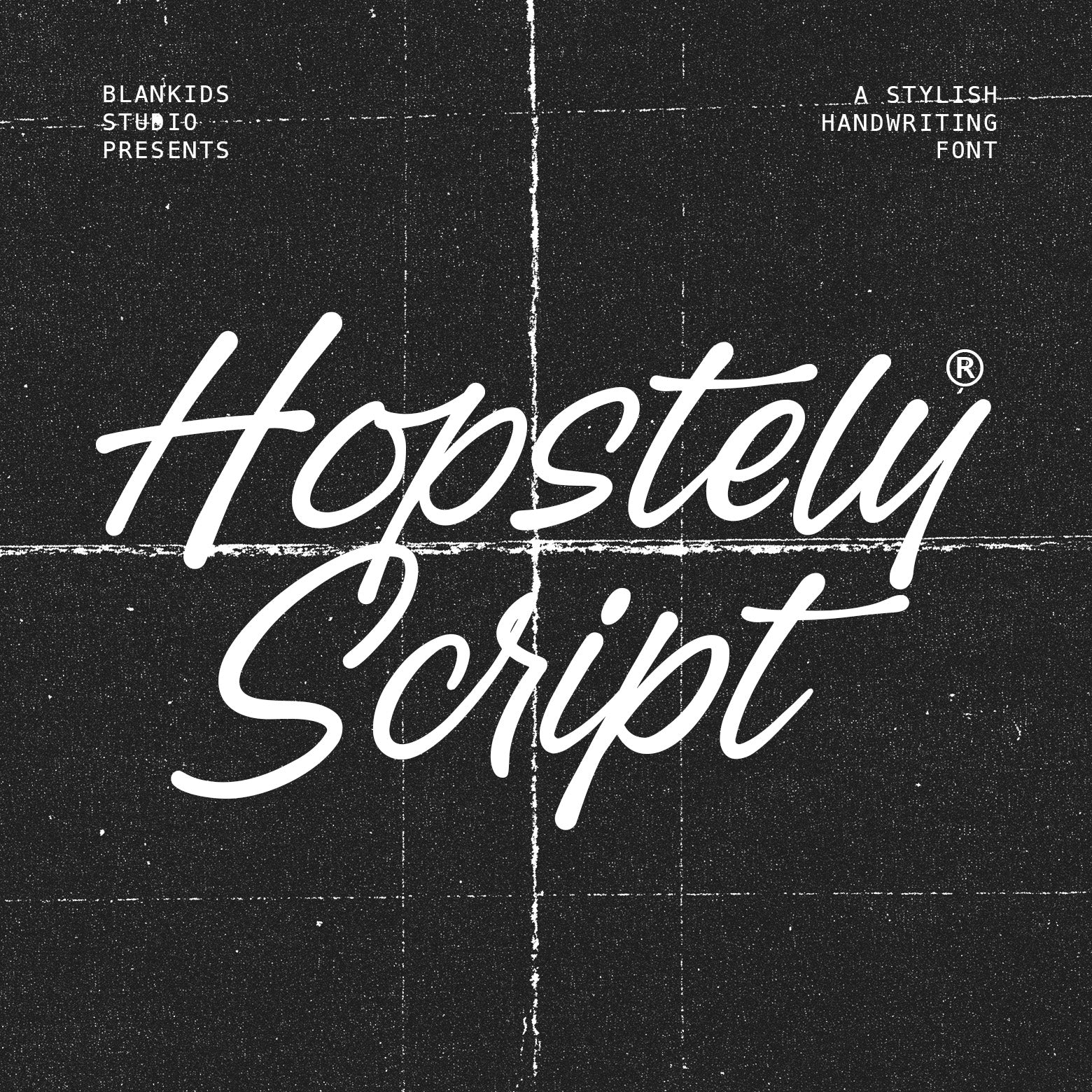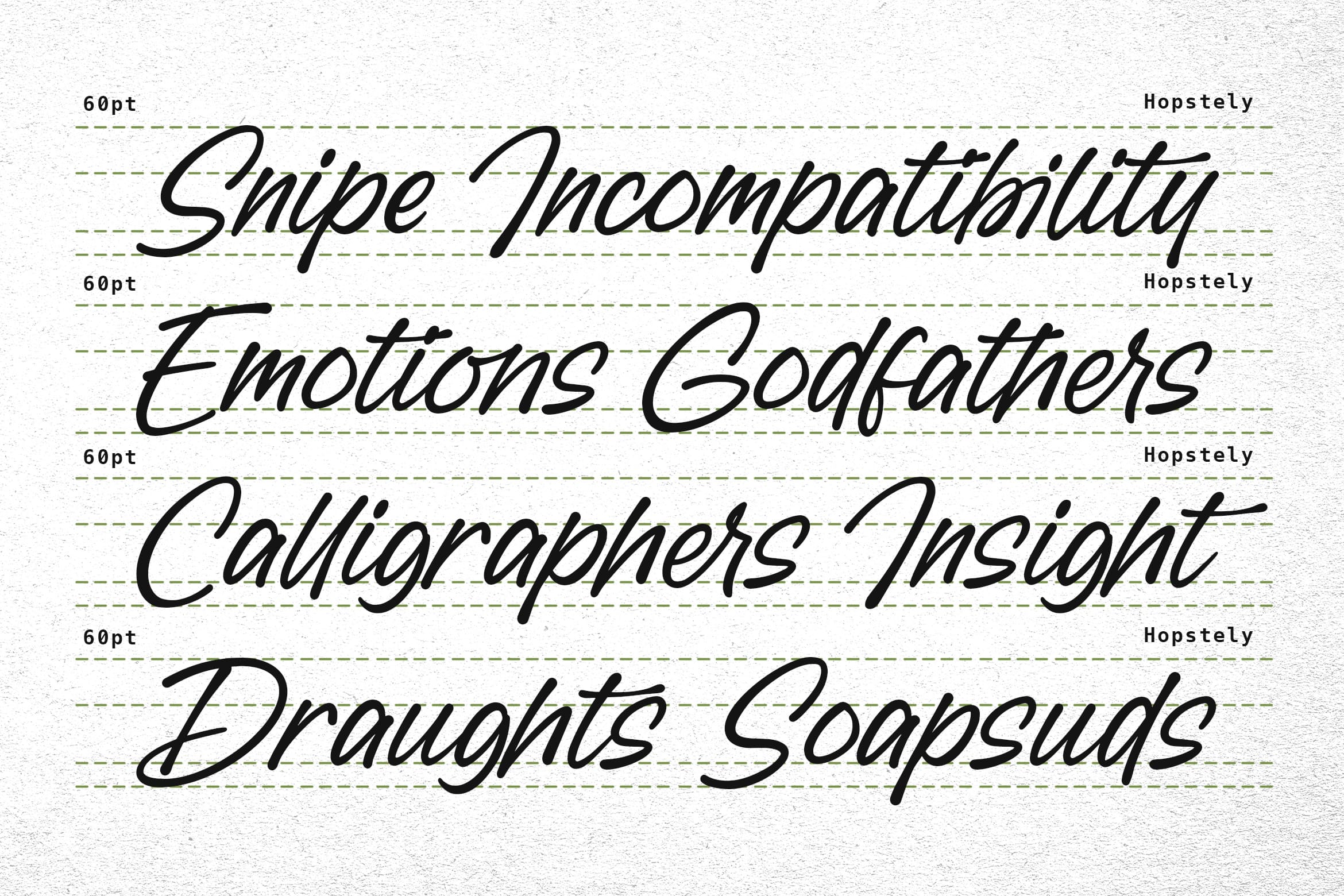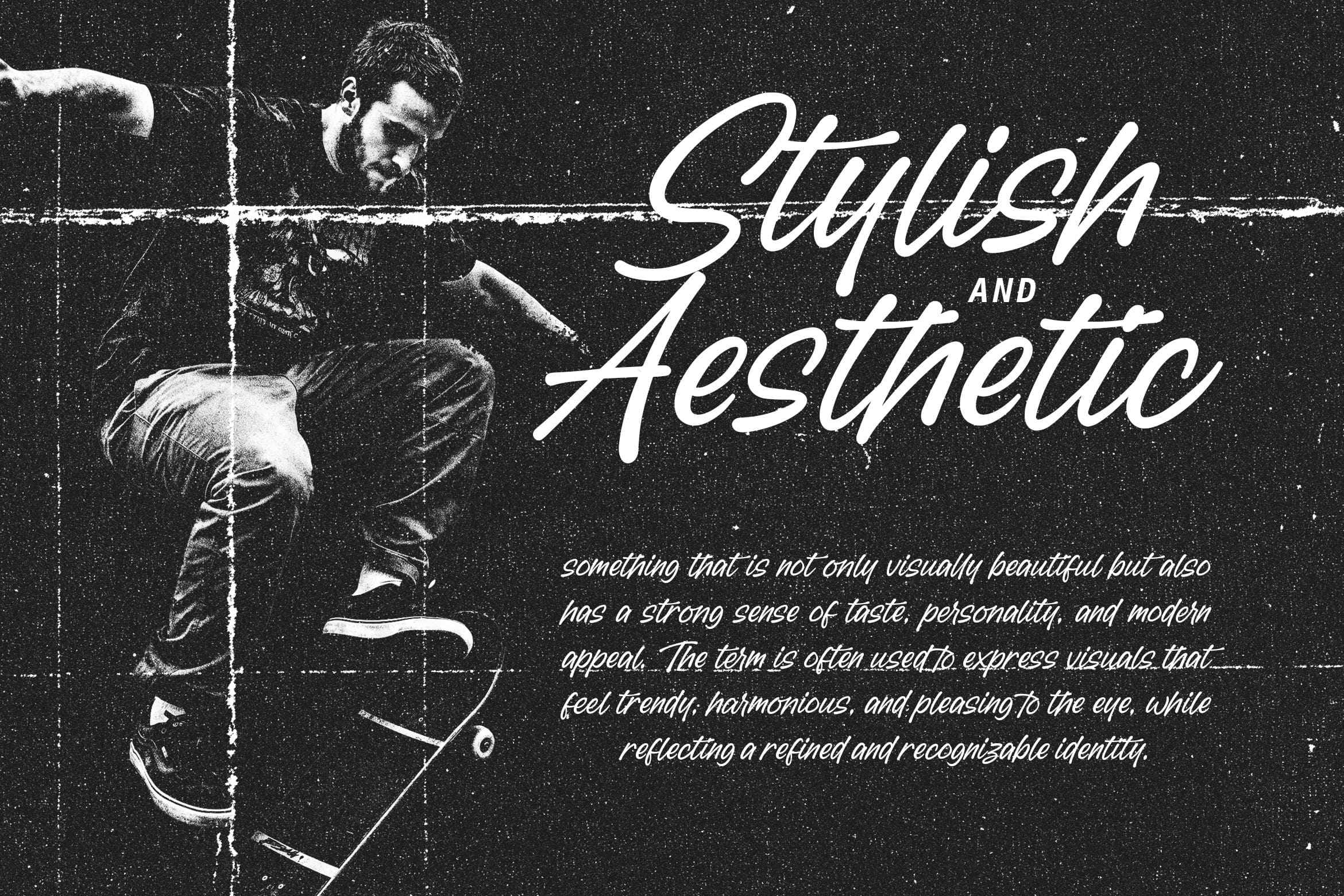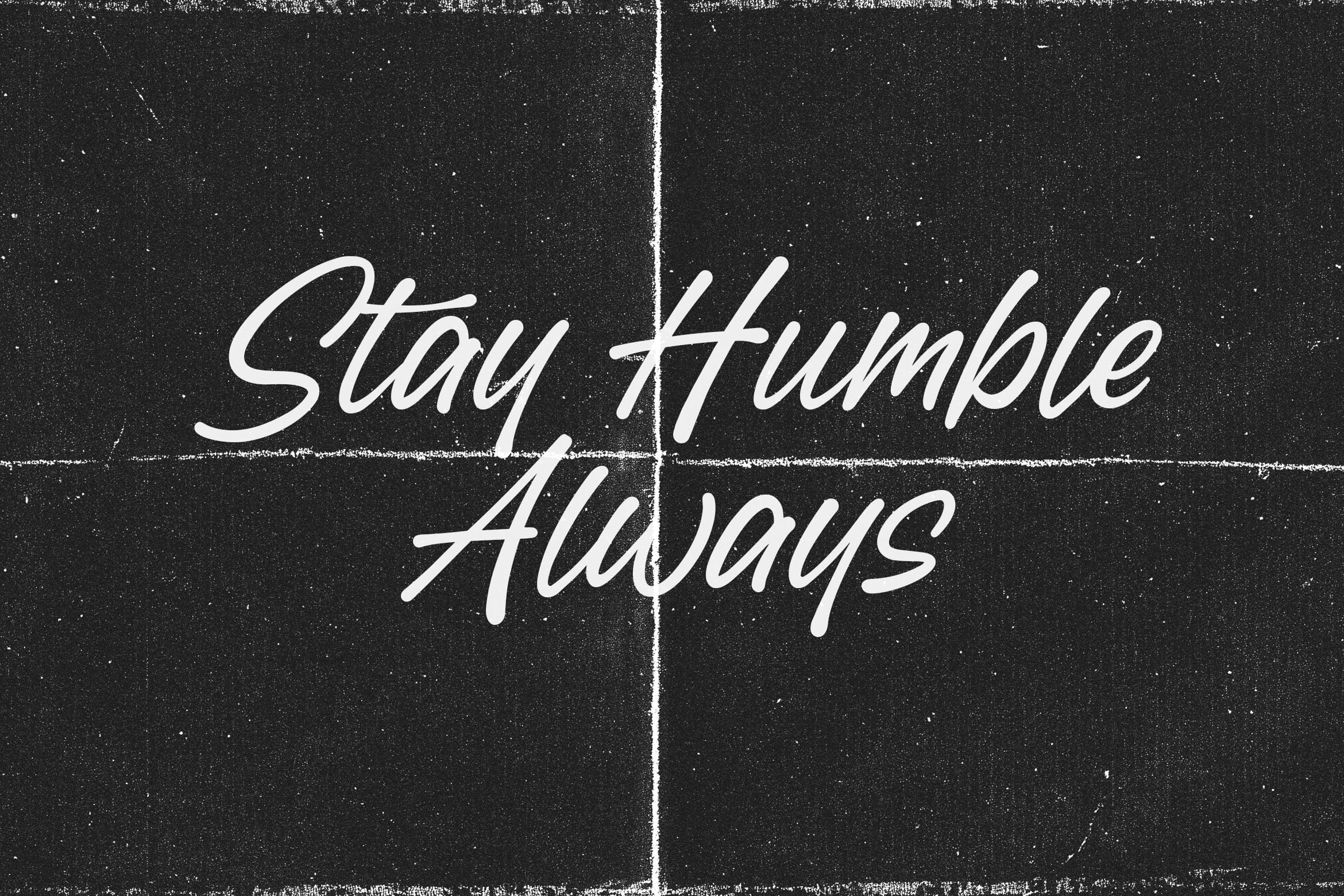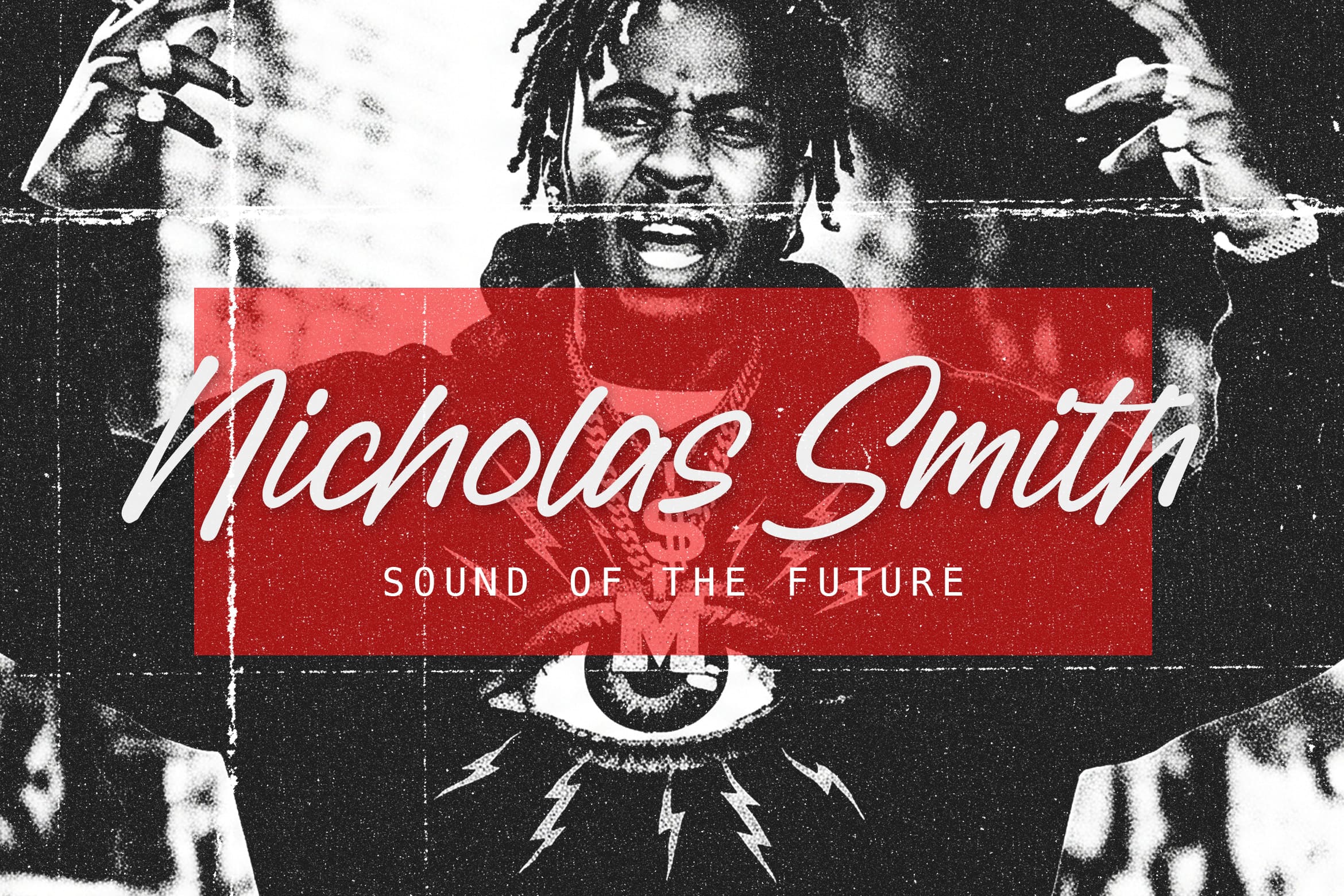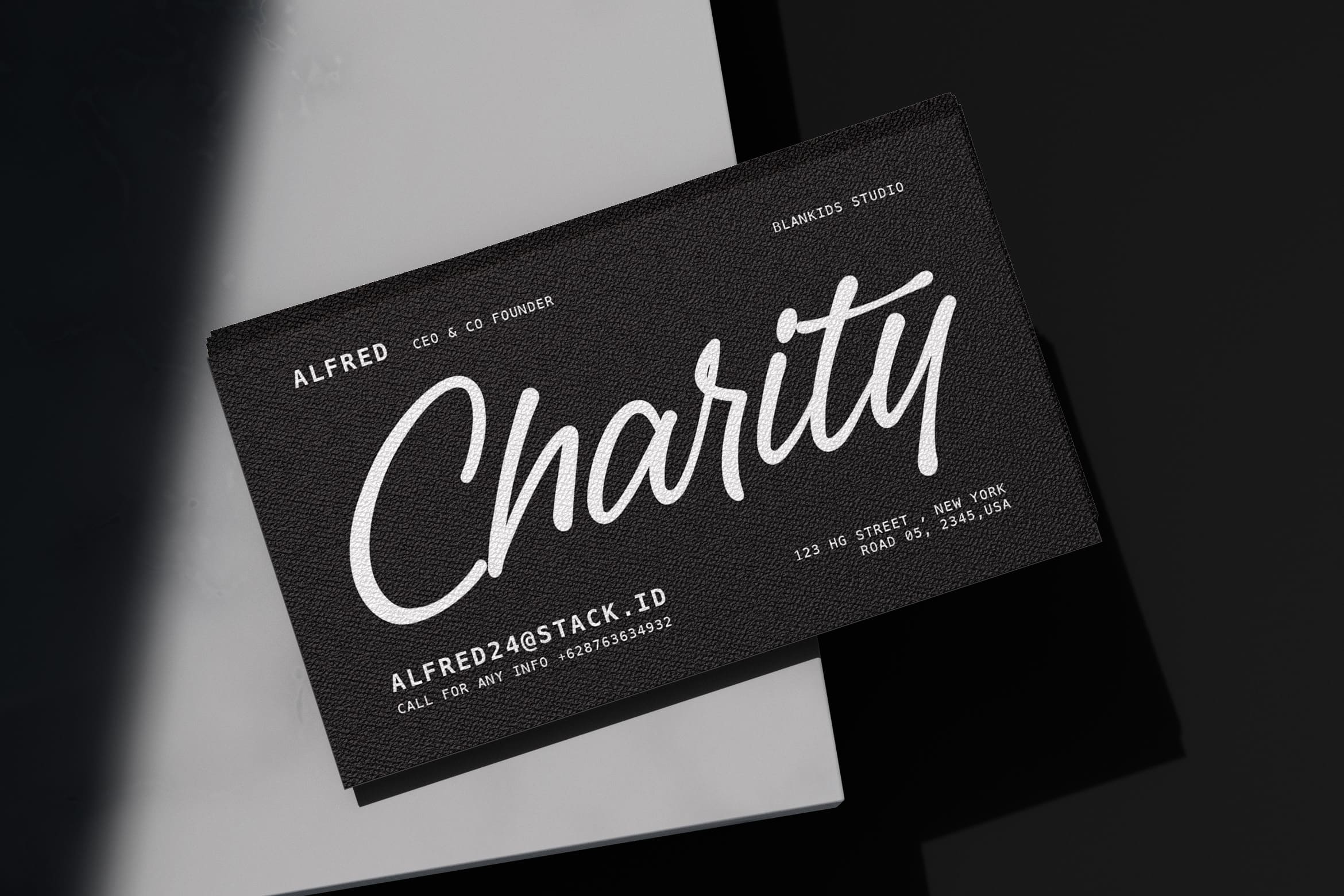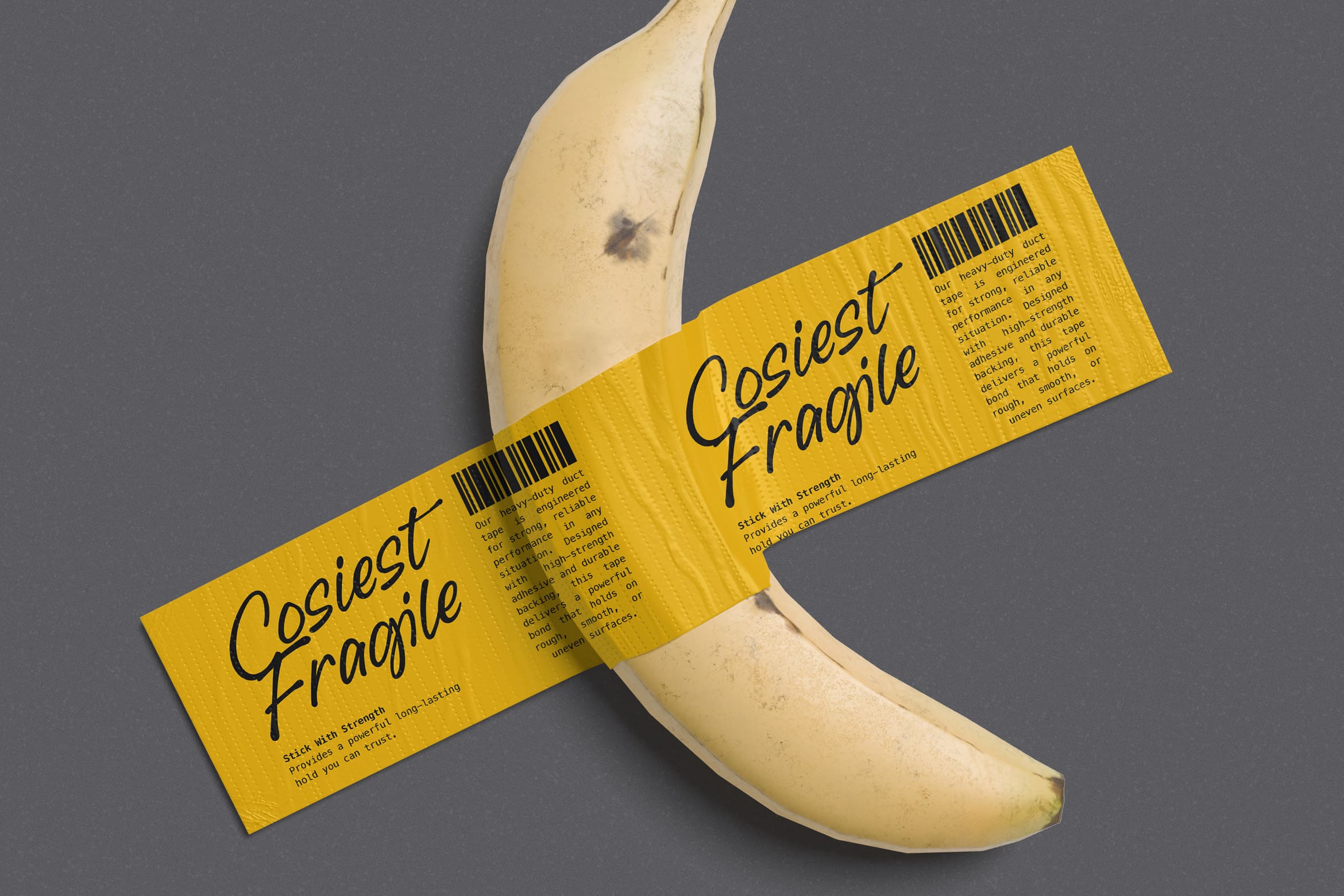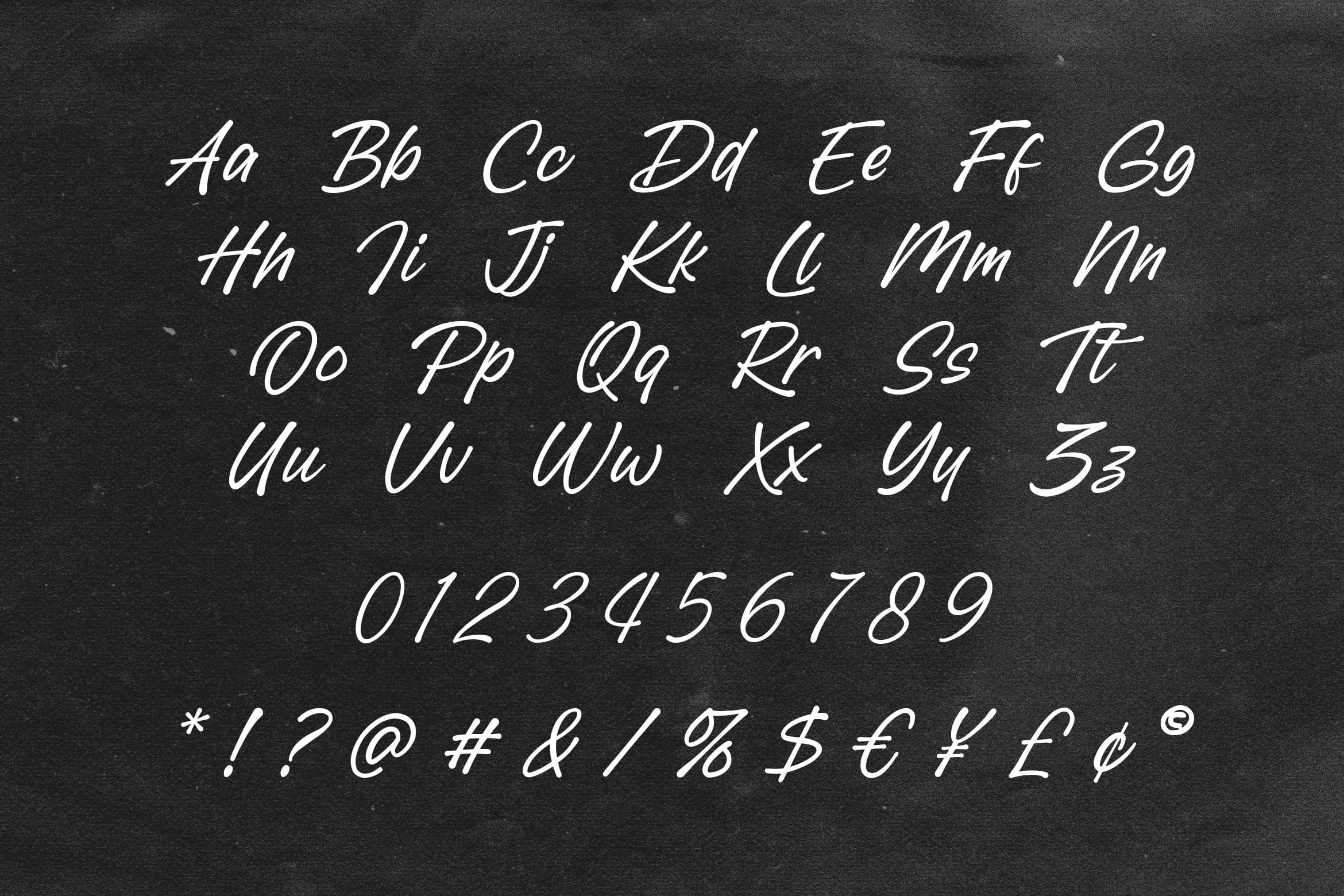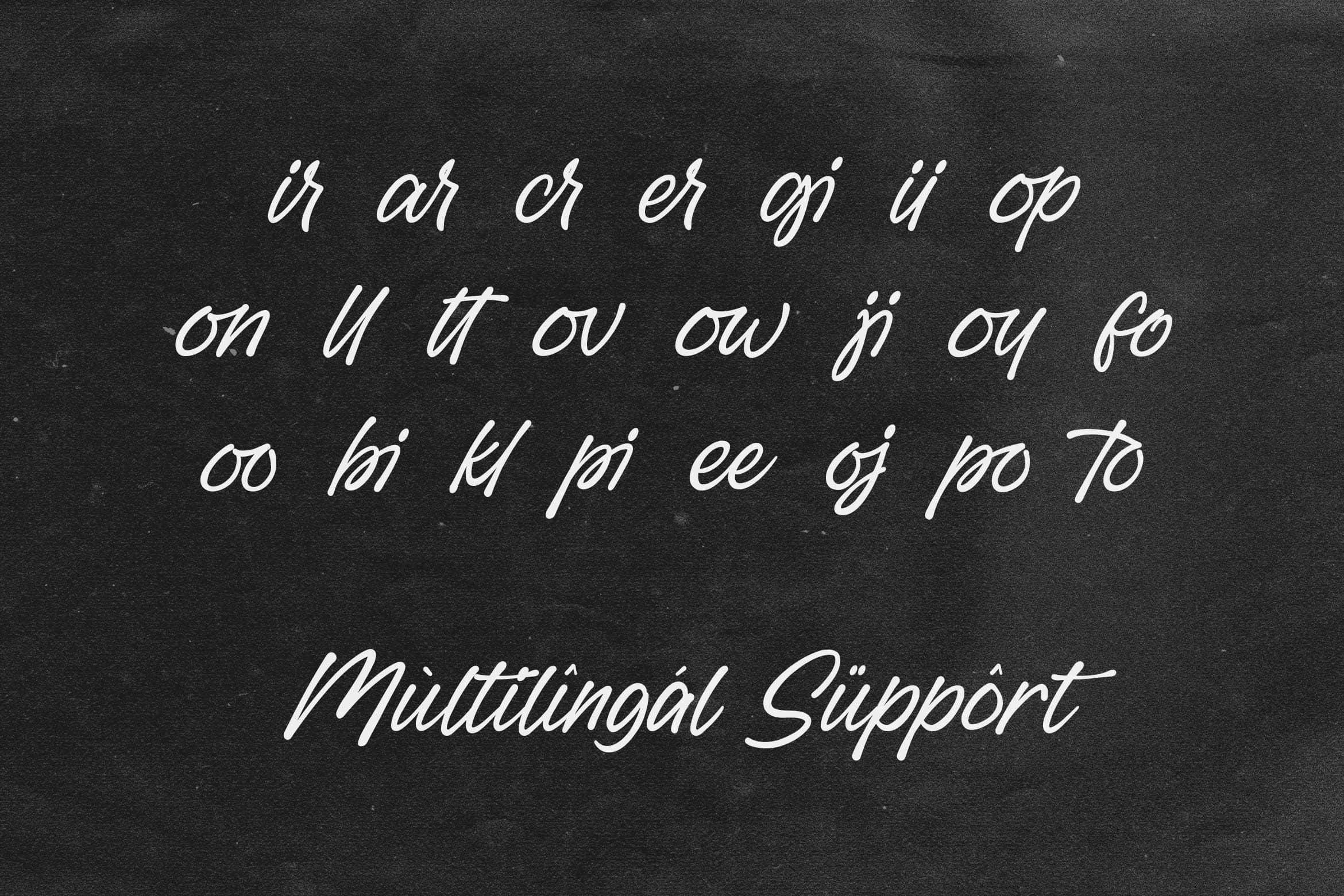
Hopstely Script – Stylish Handwritten Font
Hopstely is a modern handwritten script font designed to bring elegance, personality, and natural flow into your creative projects. Carefully crafted with smooth curves and authentic pen strokes, this font delivers a perfect balance between stylish, casual, and professional looks.
Hopstely is created to make your typography feel warm, friendly, and eye-catching while still maintaining excellent readability. Whether you’re designing branding materials, social media content, or printed products, Hopstely adds a beautiful handwritten touch that instantly elevates your design.
Hopstely Script is a modern handwritten font featuring smooth curves and authentic pen strokes, designed for a stylish yet professional appearance. It offers excellent readability and a warm, friendly aesthetic, suitable for various design projects.